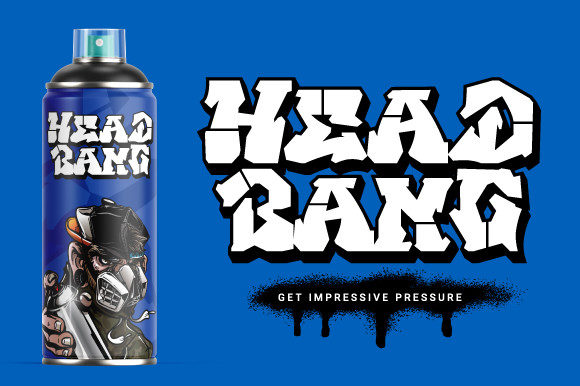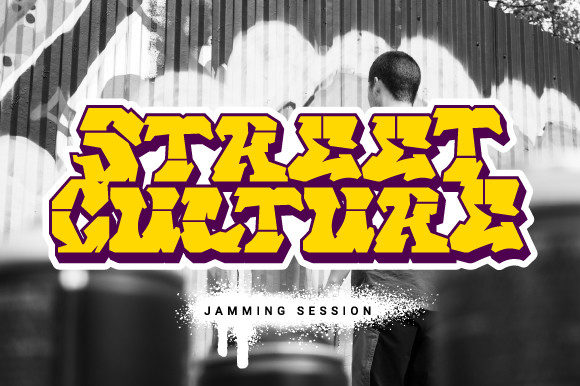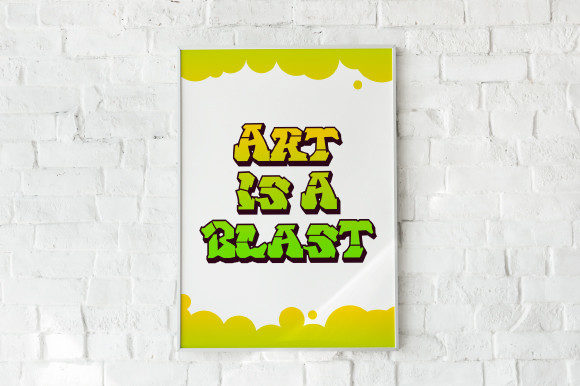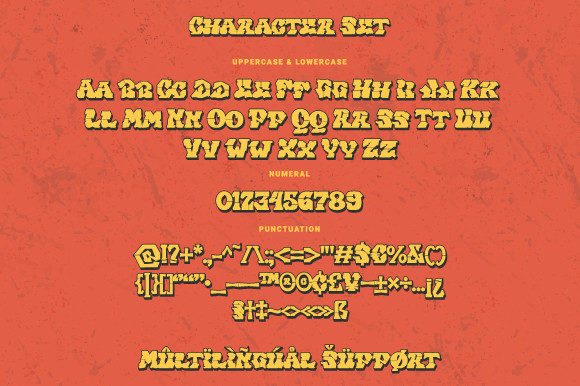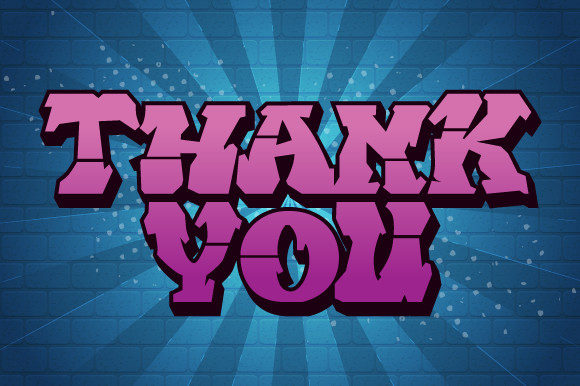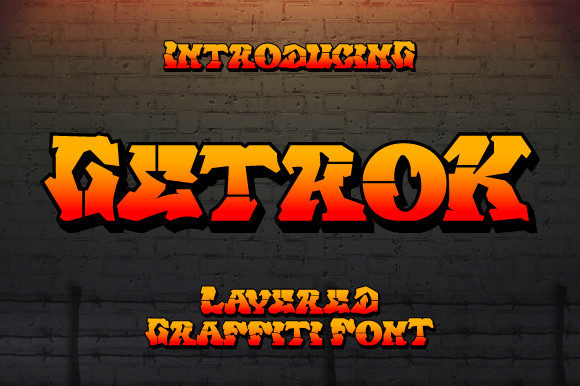
Getrok Font: Unleash Your Creativity with a Wild-Style Display Font
Are you a designer or crafter looking for a unique and eye-catching font to add a touch of street artist flair to your design projects? Look no further than Getrok, a special wild-style display font that’s perfect for creating bold and attention-grabbing designs. In this article, we’ll explore the features and benefits of Getrok, and show you how to make the most of this versatile font.
What is Getrok Font?
Getrok is a wild-style display font designed to bring a touch of urban grit and street art swagger to your design projects. With its bold, chunky lettering and eclectic style, Getrok is the perfect choice for designers and crafters who want to add a bit of edge to their work. Whether you’re creating posters, product packaging, merchandise, or any other type of design project, Getrok is sure to make a statement.
Key Features of Getrok Font
- Wild-style lettering: Getrok features bold, chunky lettering with a unique and eclectic style that’s perfect for creating eye-catching designs.
- Street artist feel: Getrok has a distinctly street artist feel, making it perfect for designers and crafters who want to add a touch of urban grit to their work.
- Versatile: Getrok can be used for a wide range of design projects, from posters and product packaging to merchandise and more.
Benefits of Using Getrok Font
So why choose Getrok for your design projects? Here are just a few benefits of using this versatile font:
- Adds edge to your designs: Getrok’s bold, wild-style lettering adds a touch of urban grit and street art swagger to your designs, making them stand out from the crowd.
- Increases visibility: Getrok’s chunky lettering and bold style make it perfect for creating eye-catching designs that grab attention and demand to be noticed.
- Versatile: Getrok can be used for a wide range of design projects, making it a great addition to any designer’s toolkit.
How to Use Getrok Font
Using Getrok is easy! Here are a few tips for getting started with this versatile font:
- Choose the right project: Getrok is perfect for design projects that require a bold, eye-catching font, such as posters, product packaging, and merchandise.
- Experiment with different styles: Getrok can be used in a variety of different styles, from bold and chunky to more subtle and nuanced.
- Pair with other fonts: Getrok can be paired with other fonts to create a unique and eye-catching design.
- Have fun: The most important thing is to have fun and be creative with Getrok! Experiment with different styles and techniques to find the look that works best for your project.
- Font type: Digital display font
- Font style: Wild-style, bold, chunky lettering